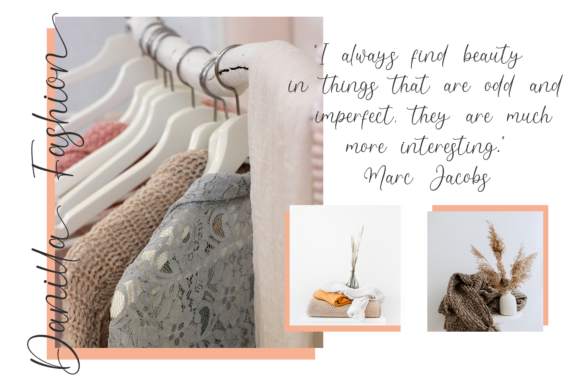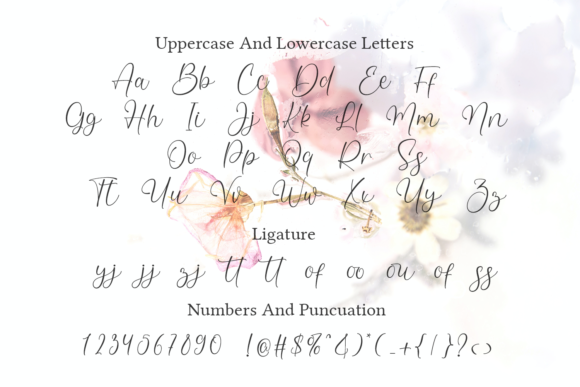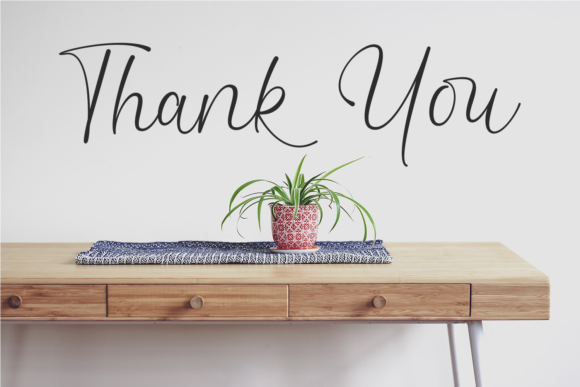
About Callistha Font
Callistha is an incredibly distinct, delicate and timeless handwritten font. It looks stunning on wedding invitations, thank you cards, quotes, greeting cards, logos, business cards and every other design which needs a handwritten touch. Callistha is PUA encoded which means you can access all of the glyphs and swashes with ease!